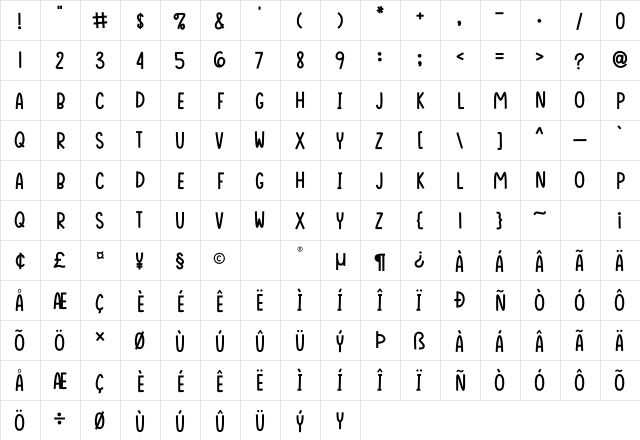
Alone On Earth Regular
| Designer | The Docallisme |
Design Context for Alone On Earth Typeface
Alone On Earth offers clean, dependable letterforms without strong stylistic allegiance, making it a practical choice for designers who need flexibility.